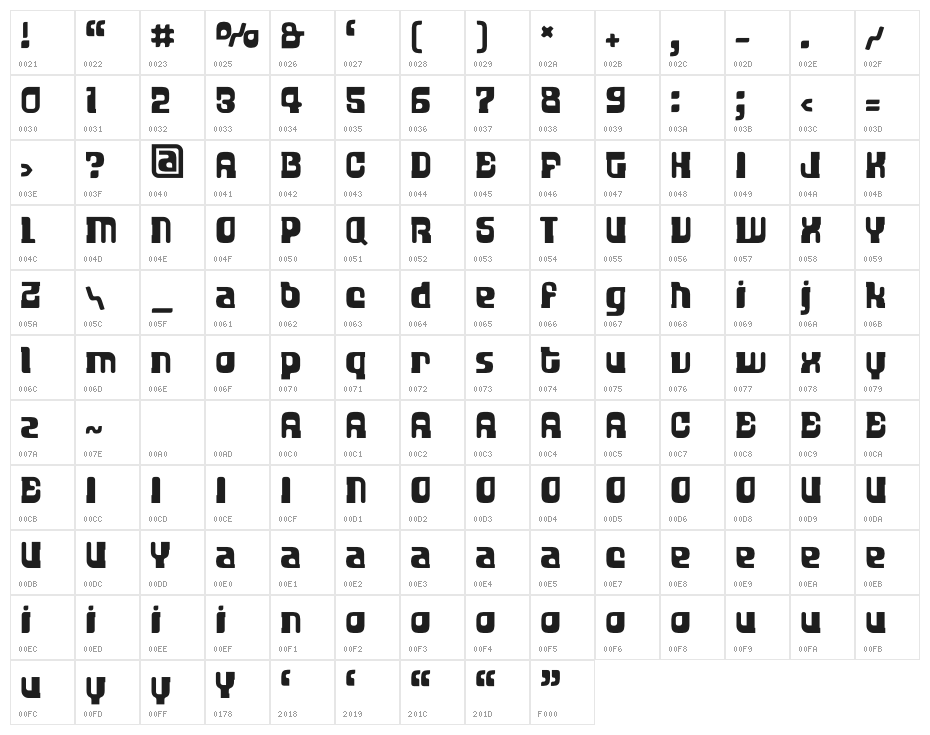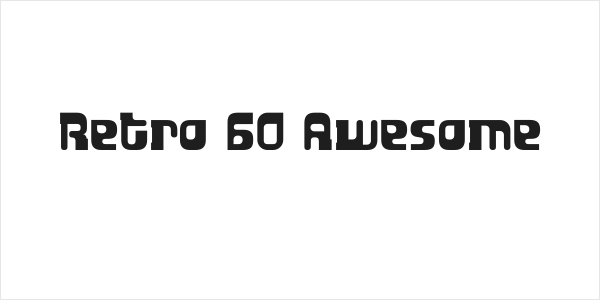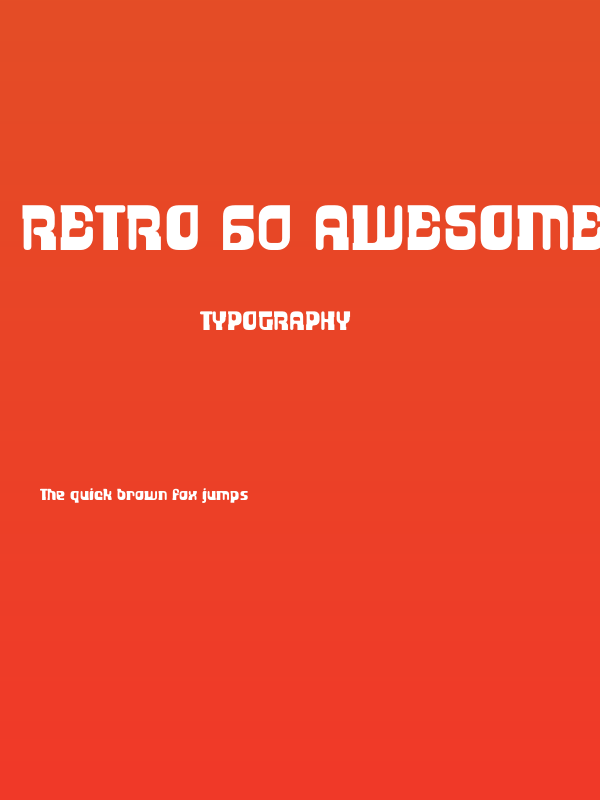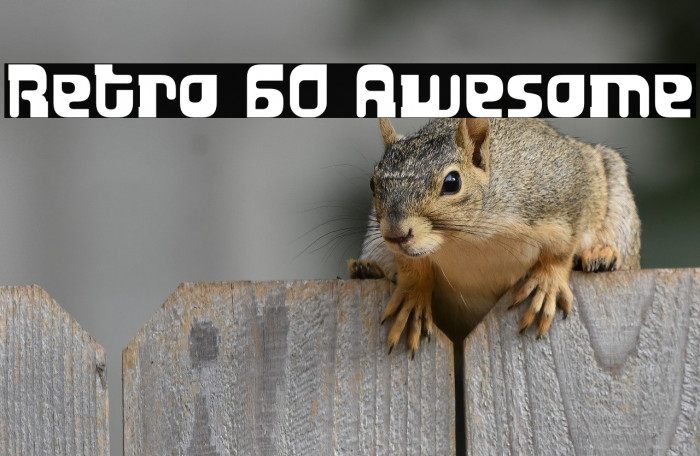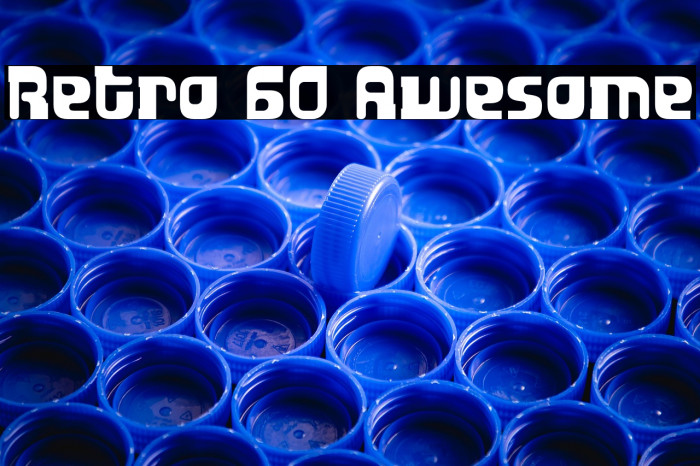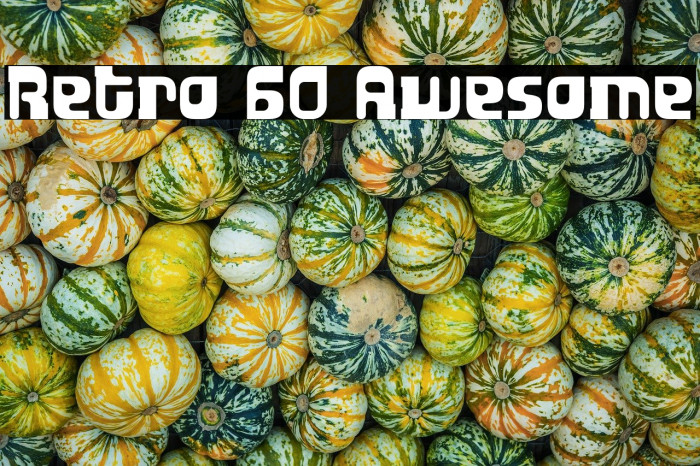
Retro 60 Awesome Font
Retro 60 Awesome Description
This font features a bold and striking design with a distinctly retro flair, reminiscent of 1960s aesthetics. The characters are blocky and robust, with a unique geometric structure that gives them a strong presence. The uppercase letters are particularly bold, with a uniform thickness that adds to their commanding appearance. The lowercase letters maintain the same boldness but with a slightly softer edge, providing a nice contrast. The numbers and special characters are equally bold and consistent, making them stand out. The overall design is playful yet assertive, making it ideal for projects that require a vintage or nostalgic touch.
| Proposed Projects | Ideal for vintage-themed posters, retro branding, and eye-catching headlines. |